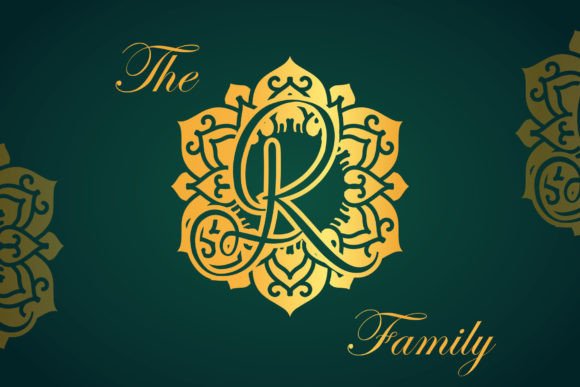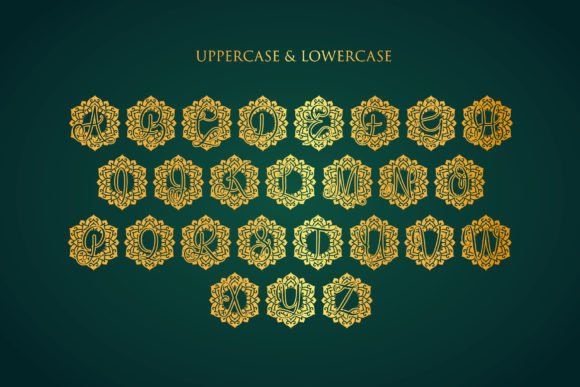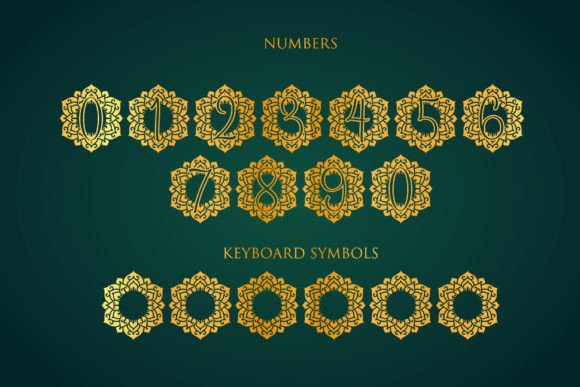
Introducing Crystal Mandala Monogram Font: Elevate Your Creations with Elegance
In the world of design, fonts play a crucial role in conveying the tone and aesthetic of a project. For crafters, designers, and artists, finding the perfect font can be a game-changer. If you’re looking for a stylish and unique decorative font that can add a touch of elegance to your creations, look no further than the Crystal Mandala Monogram Font. Inspired by the intricate beauty of mandala art, this font is sure to elevate your designs and leave a lasting impression.
What is Crystal Mandala Monogram Font?
Crystal Mandala Monogram Font is a decorative font that combines the sophistication of crystal with the spiritual significance of mandalas. Each letter in this font is carefully crafted to resemble a miniature mandala, with delicate lines, curves, and patterns that evoke a sense of luxury and refinement. Whether you’re working on a logo, a branding project, or a personal craft, this font is designed to add a touch of glamour and sophistication.
Key Features of Crystal Mandala Monogram Font
- Unique and Stylish Design: The Crystal Mandala Monogram Font boasts a distinctive design that sets it apart from other fonts. Its intricate patterns and curves make it perfect for creating eye-catching headlines, titles, and monograms.
- Elegant and Versatile: This font is incredibly versatile and can be used for a wide range of projects, from wedding invitations and stationery to logos, branding, and packaging.
- Scalable: This font is highly scalable, ensuring that it looks great in any size or format.
How to Use Crystal Mandala Monogram Font
The Crystal Mandala Monogram Font can be used in a variety of ways to elevate your designs. Here are a few ideas to get you started:
- Wedding Invitations and Stationery: Add a touch of elegance to your wedding invitations, save-the-date cards, and stationery with this beautiful font.
- Logo Design and Branding: Use the Crystal Mandala Monogram Font to create a unique and memorable logo for your business or brand.
- Crafting and Scrapbooking: This font is perfect for crafters and scrapbookers who want to add a personal touch to their projects.
- Digital Art and Illustrations: The Crystal Mandala Monogram Font can be used to add a decorative element to your digital art and illustrations.
Tips for Getting the Most Out of Crystal Mandala Monogram Font
To get the most out of this beautiful font, here are a few tips to keep in mind:
- Experiment with Colors: The Crystal Mandala Monogram Font looks great in a variety of colors, so don’t be afraid to experiment and find the perfect hue for your project.
- Mix and Match: Try pairing the Crystal Mandala Monogram Font with other fonts to create a unique and eye-catching combination.
- Pay Attention to Size: Make sure to adjust the size of the font to fit your project, as it can be highly scalable.
The Crystal Mandala Monogram Font is a stylish and unique decorative font that can add a touch of elegance to any project. With its intricate design and versatile nature, it’s perfect for designers, crafters, and artists who want to elevate their creations. Whether you’re working on a logo, a branding project, or a personal craft, this font is sure to make a lasting impression. So why wait? Download the Crystal Mandala Monogram Font today and start creating something truly special.